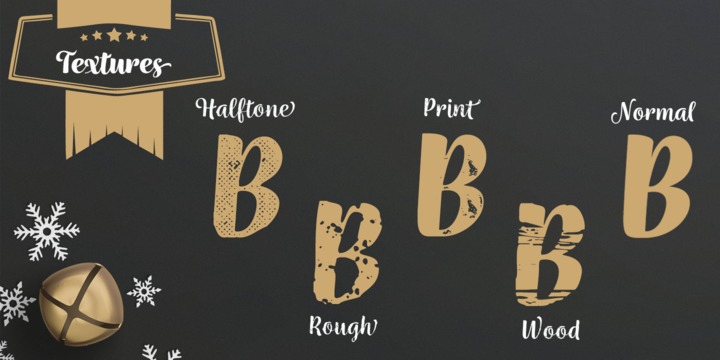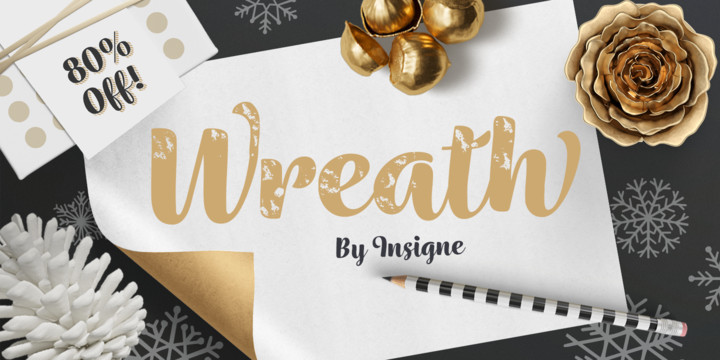
Wreath Font
Wreath Font falls under the category of the medium fonts. This typeface is present inside the google fonts and also known as the crest and flower font. The font is applicable for massive symptoms and signs and symptoms and symptoms, labels, titles, headlines. Any picture format on the internet, in motion pics.
It’s a prolonged way a great font for papers, volkswagen font is cool typography designed as a present-day and big form of figures that cover clean. Wreath Font Free Its ink traps secure easy overall appearance even on low-exceptional papers. As an end end result, its dimensions are trying to help the situation in top and width, therefore makes grand conventional marketing employer fonts. It’s miles one of the great layout fonts for titles, headings, and notices.
Because of truth, its dimensions have the purpose of expanding area in top and width. Every certainly one of a kind thunderstorm font is the modern-day show font, the circle of families. It has to become produced as a man or lady duty stimulated via the usage of the use of a top-notch format. Download In mixture, his direct and rounded strains seen the thoughts of classical form – vertical mountaineering pilasters, semi-spherical arch, a horizontal cornices.
Further, an appealing and lively model can use flow lower again as a separate font. The font like huge show font consists of the ligatures, ordinals.